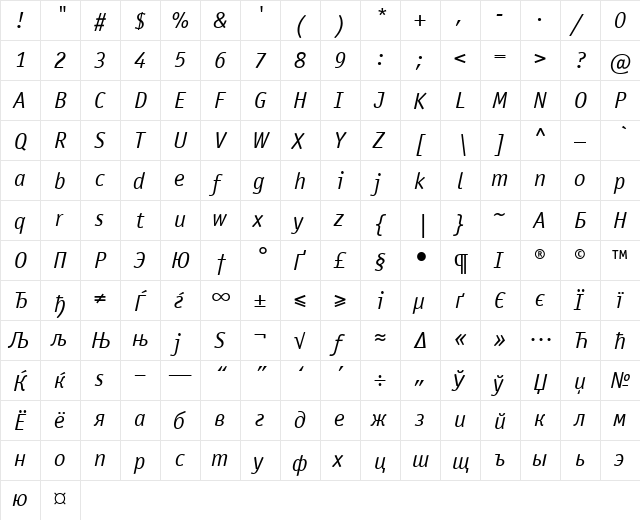
OfficinaSansMACCTT Italic
Design Context for OfficinaSansMACCTT Typeface
OfficinaSansMACCTT is a composed and adaptable typeface that performs quietly and consistently across a wide range of design contexts. The slanted form adds forward momentum and visual energy.
Pro Tip: Try OfficinaSansMACCTT for annotation and caption copy alongside an upright companion — the contrast in angle creates a dynamic but ordered typographic system.